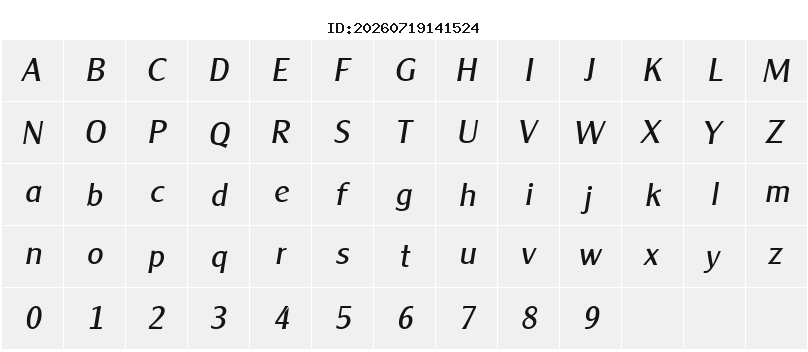
Cleargothic-RegularIta.ttf is a modern, elegant sans-serif font designed for ultimate readability and visual harmony. Perfect for branding, headlines, web design, and print materials.